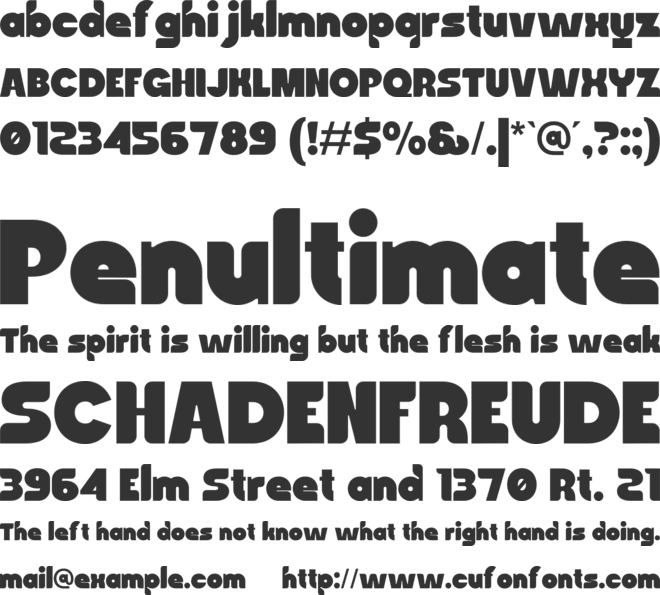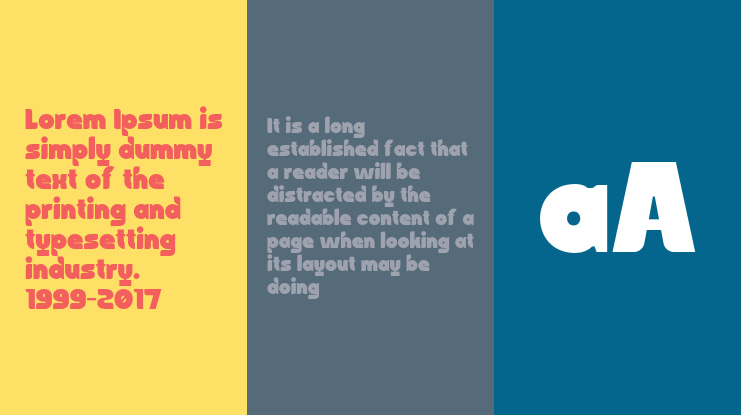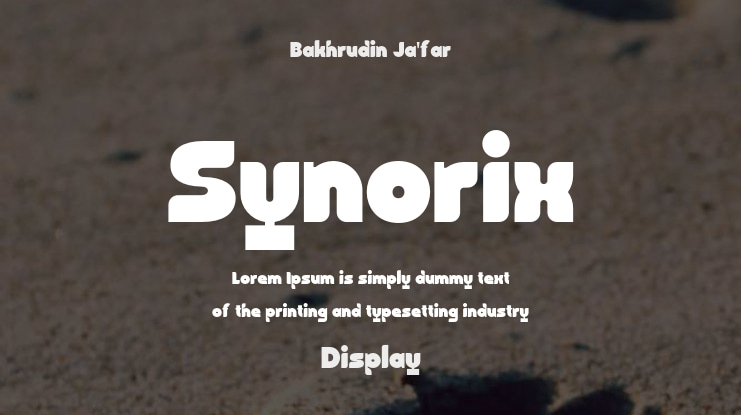
Synorix Font
Synorix is a bold and modern sans serif font with a soft, rounded touch. Designed to be thick, clean, and visually striking, this font is perfect for logos, branding, headlines, posters, and more. Its smooth curves and balanced proportions give it a friendly yet strong personality, making it a great choice for both creative and professional projects.